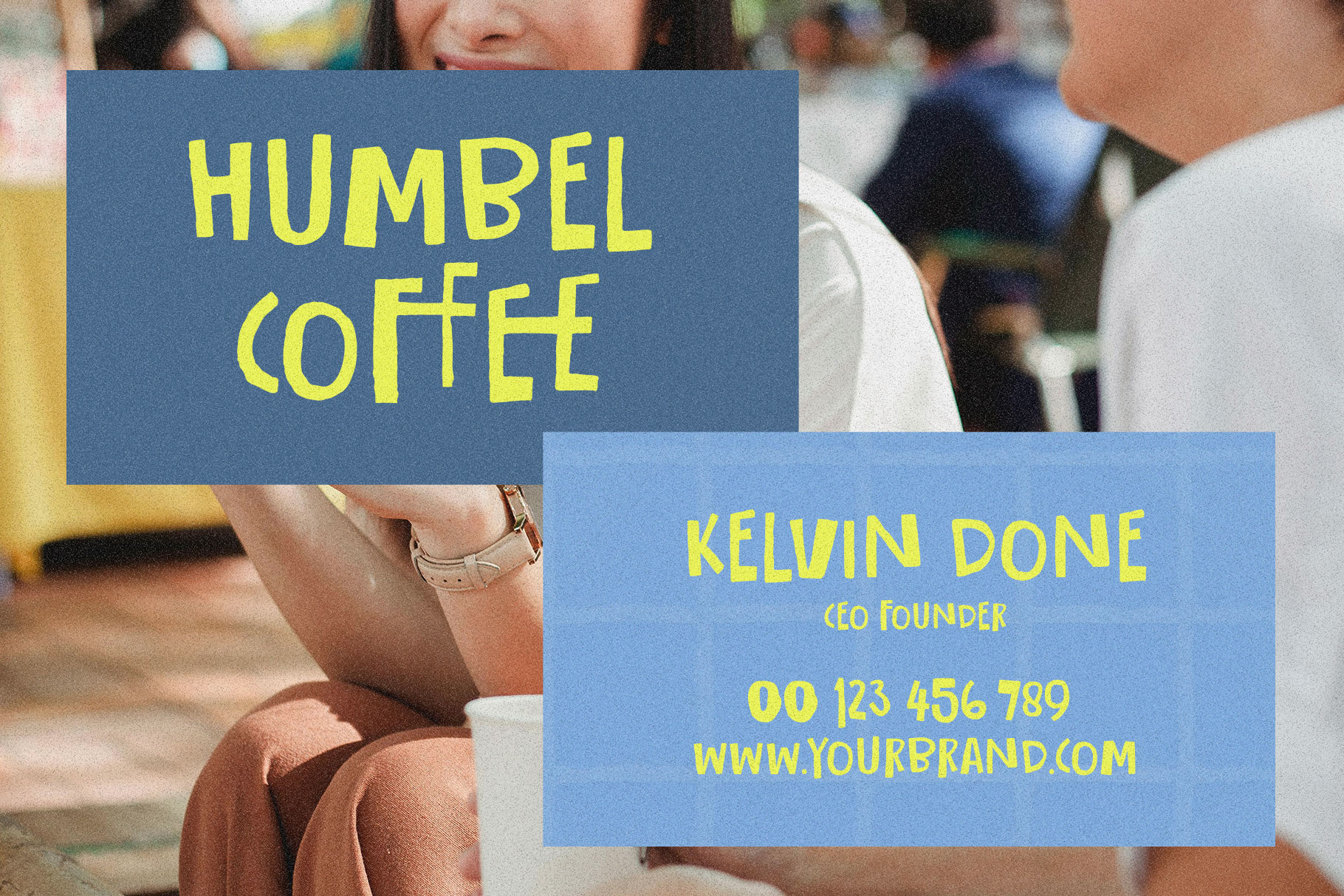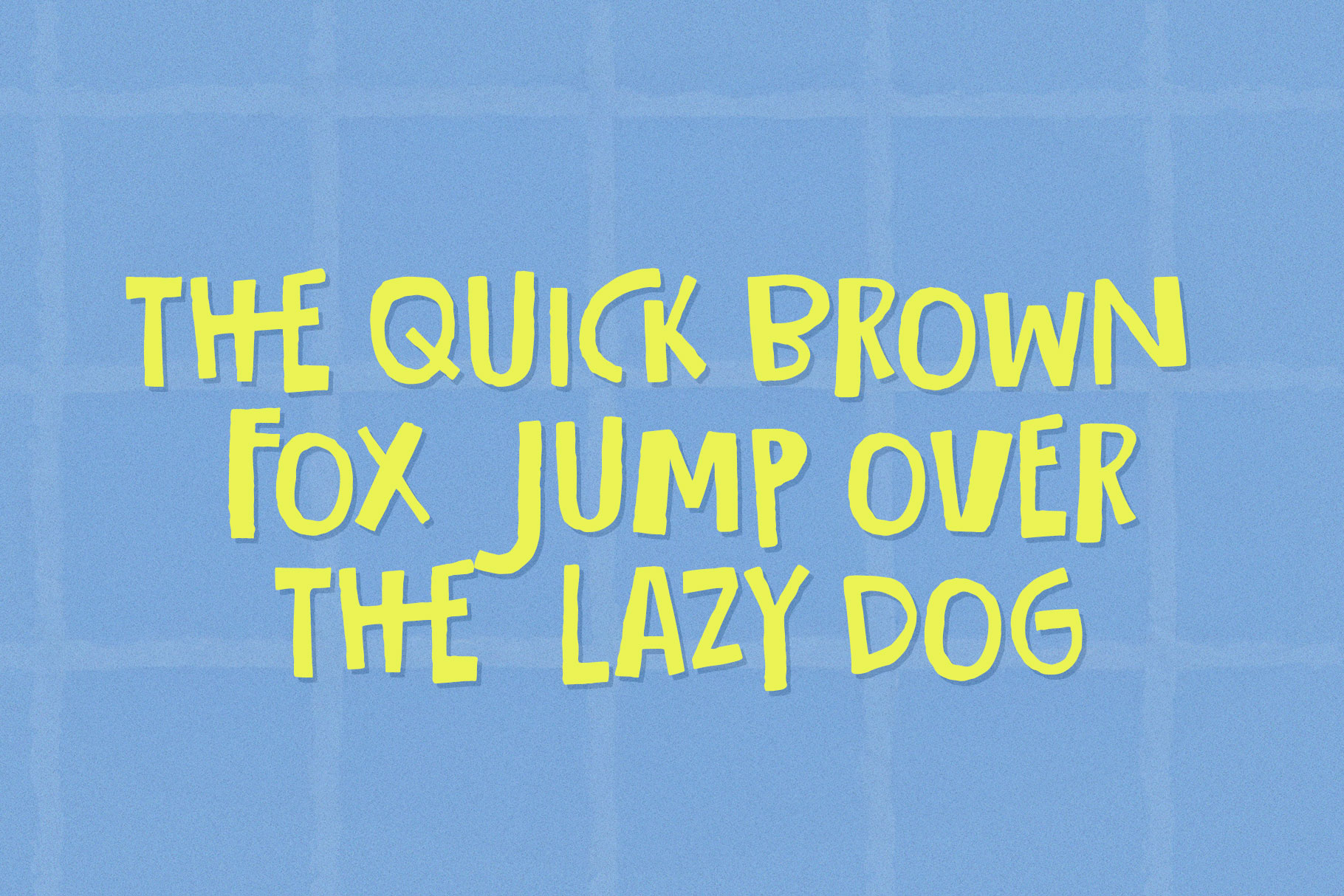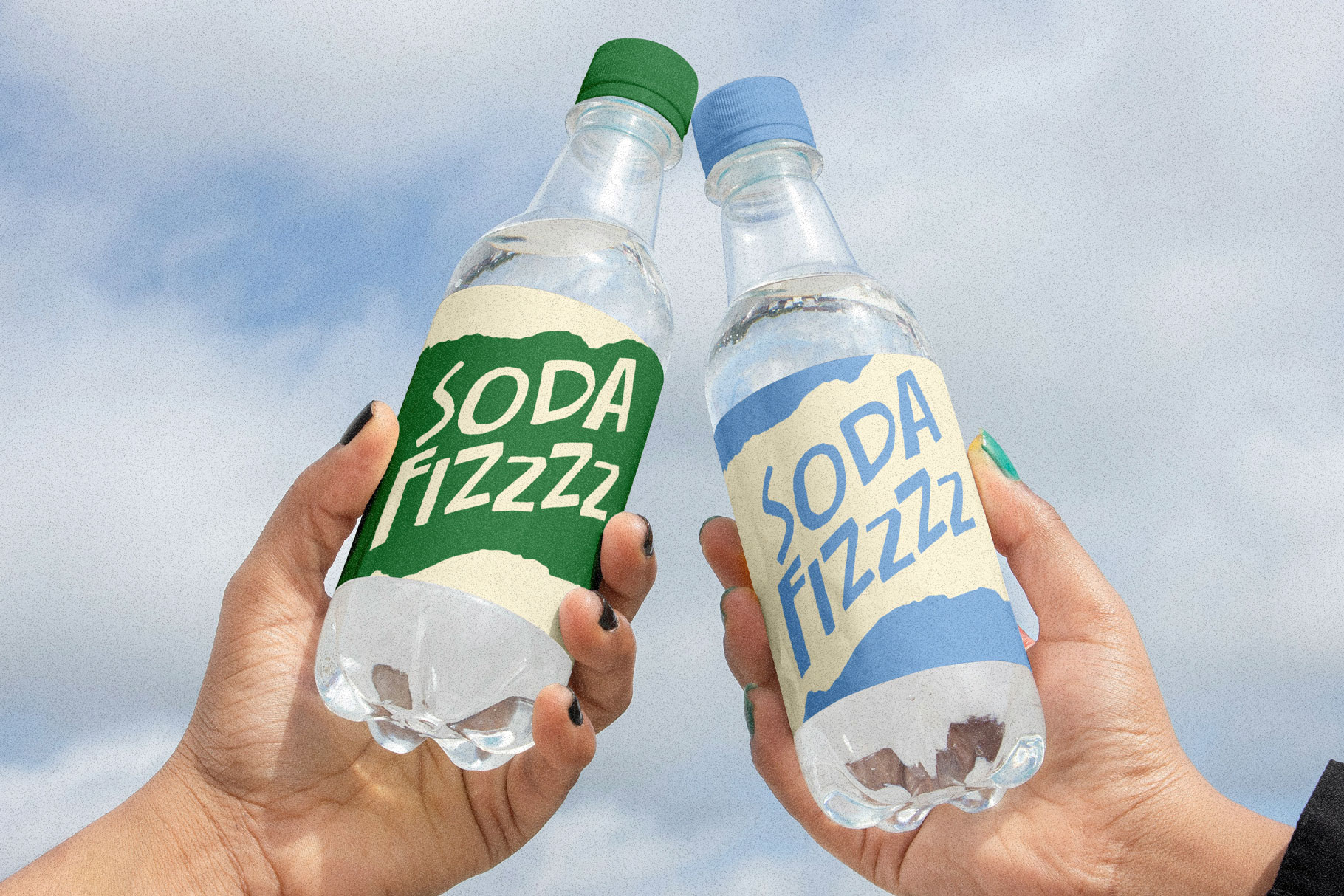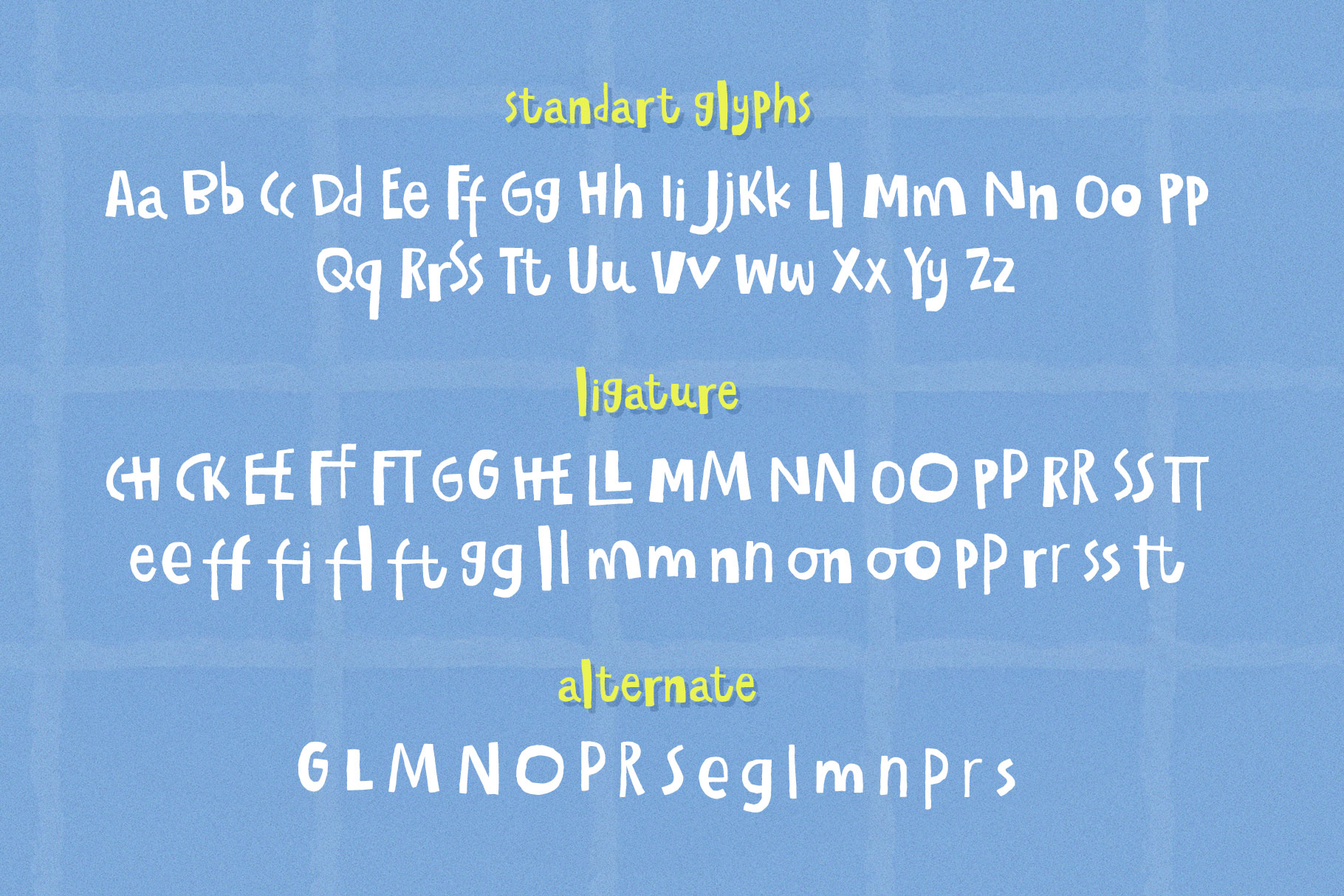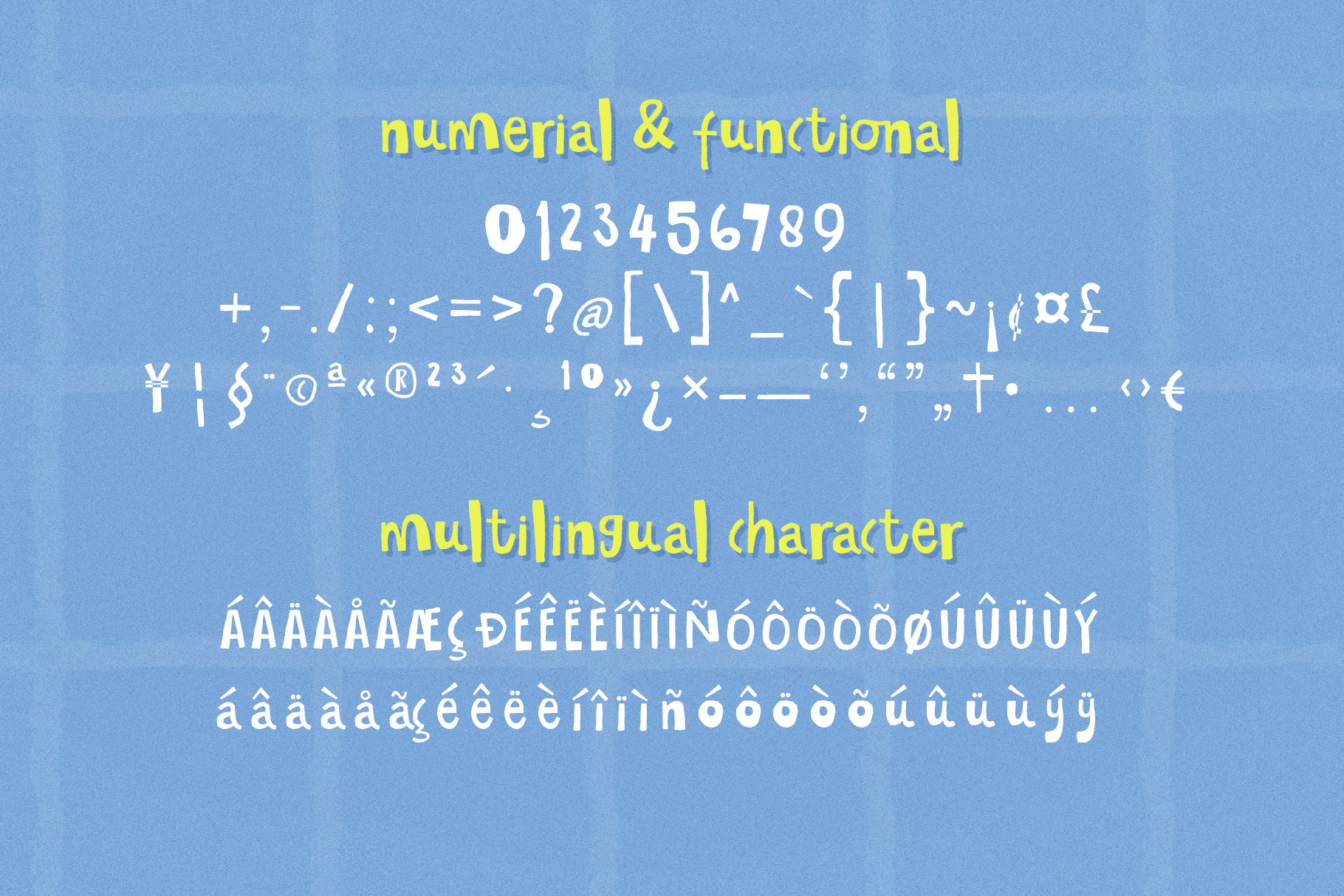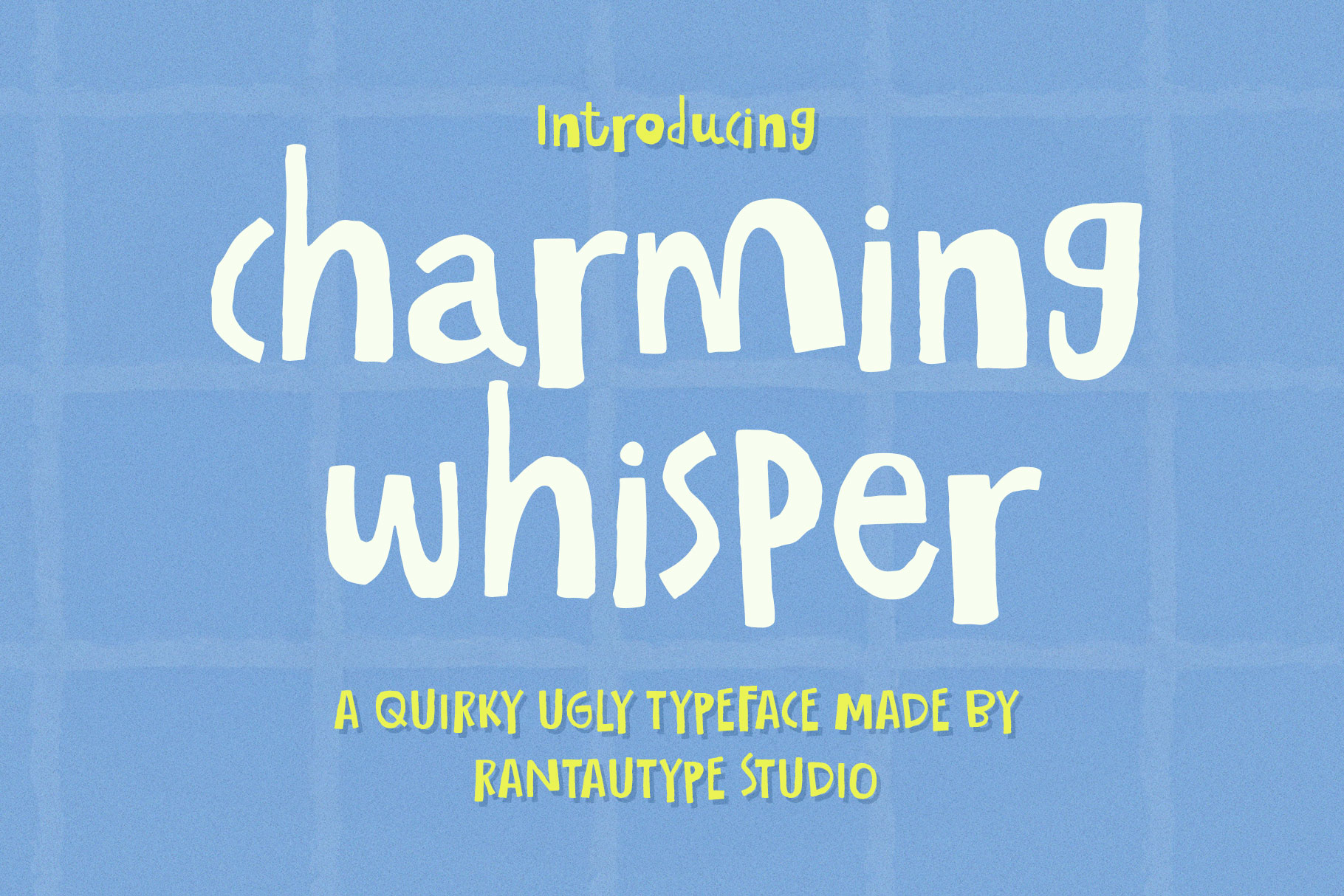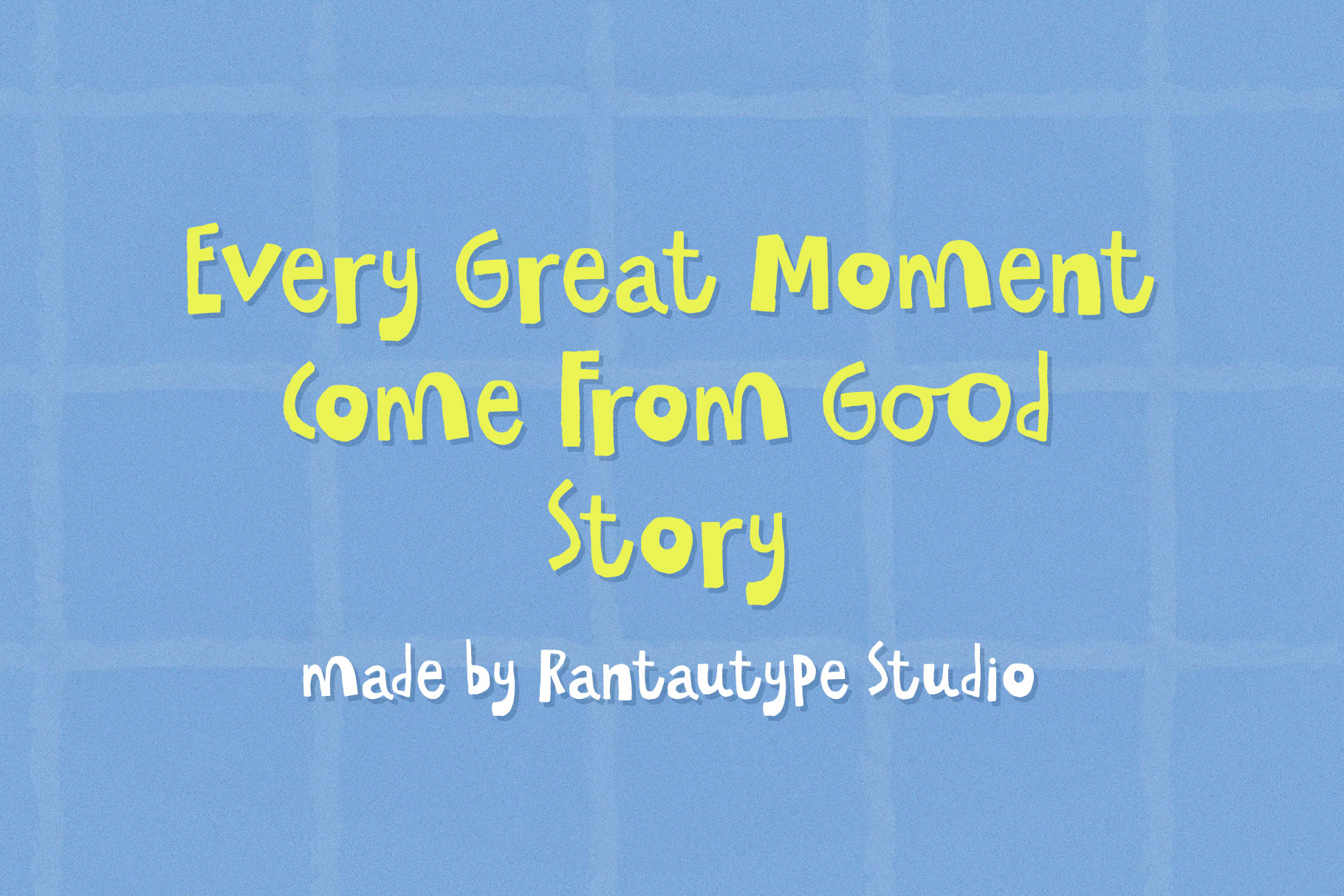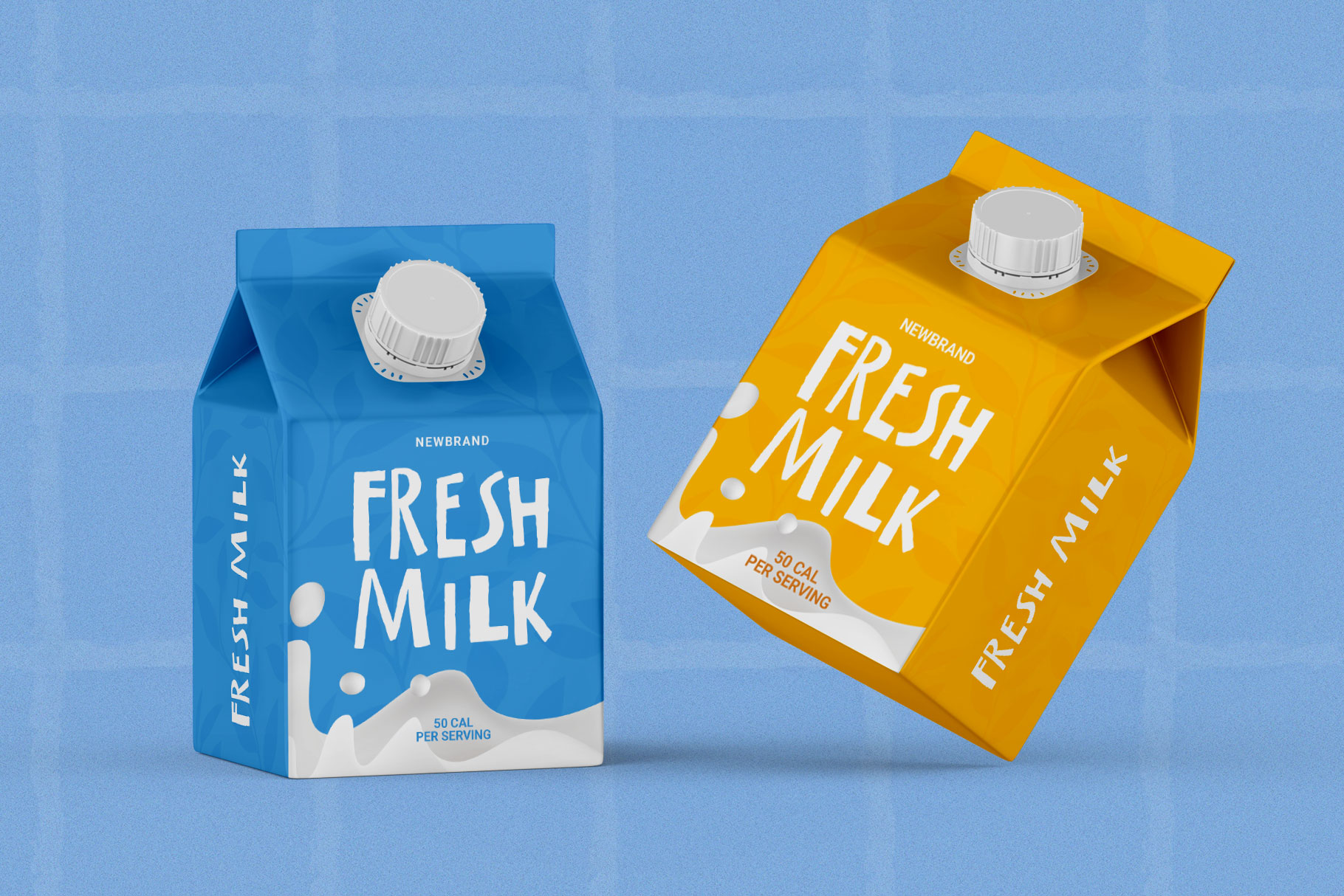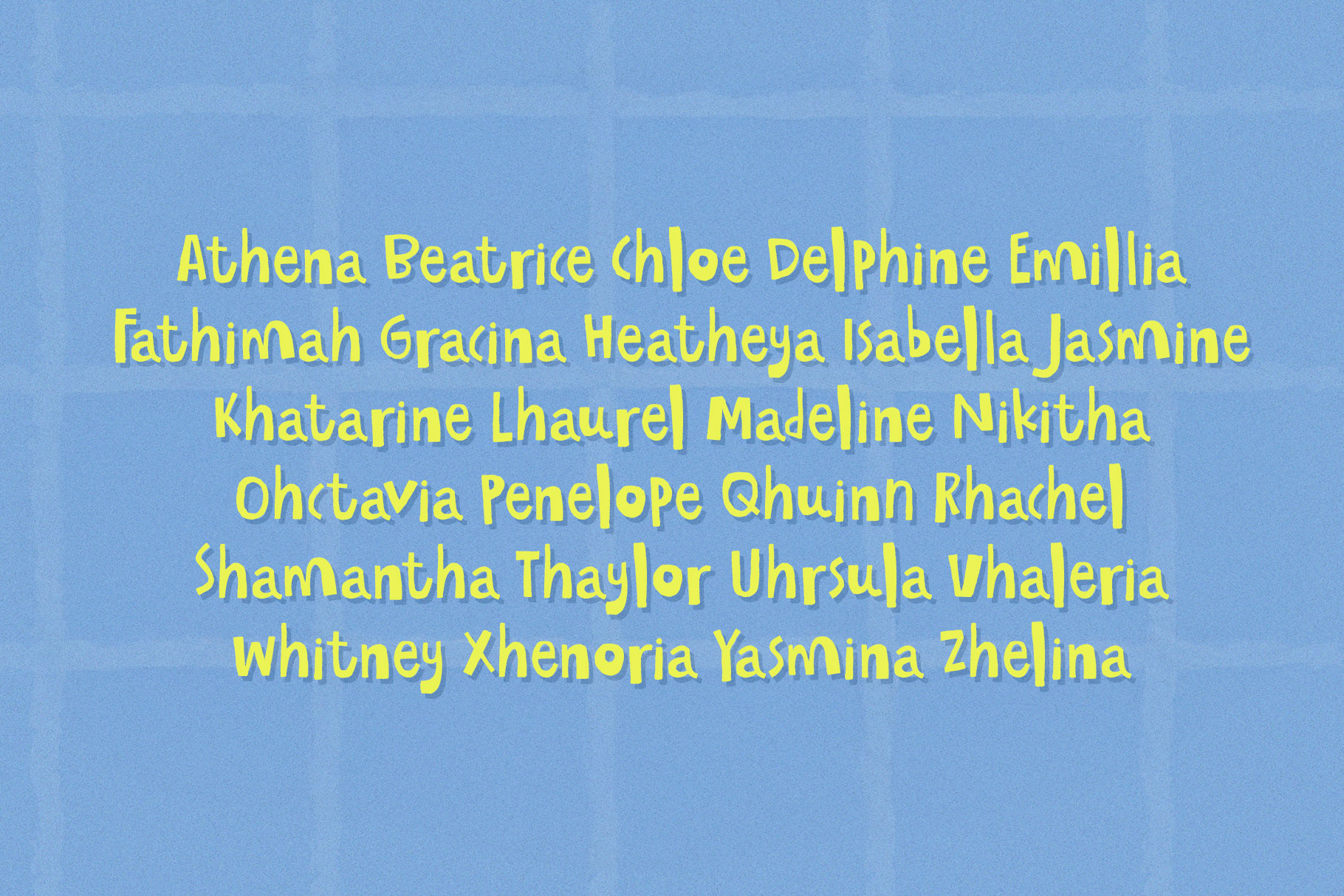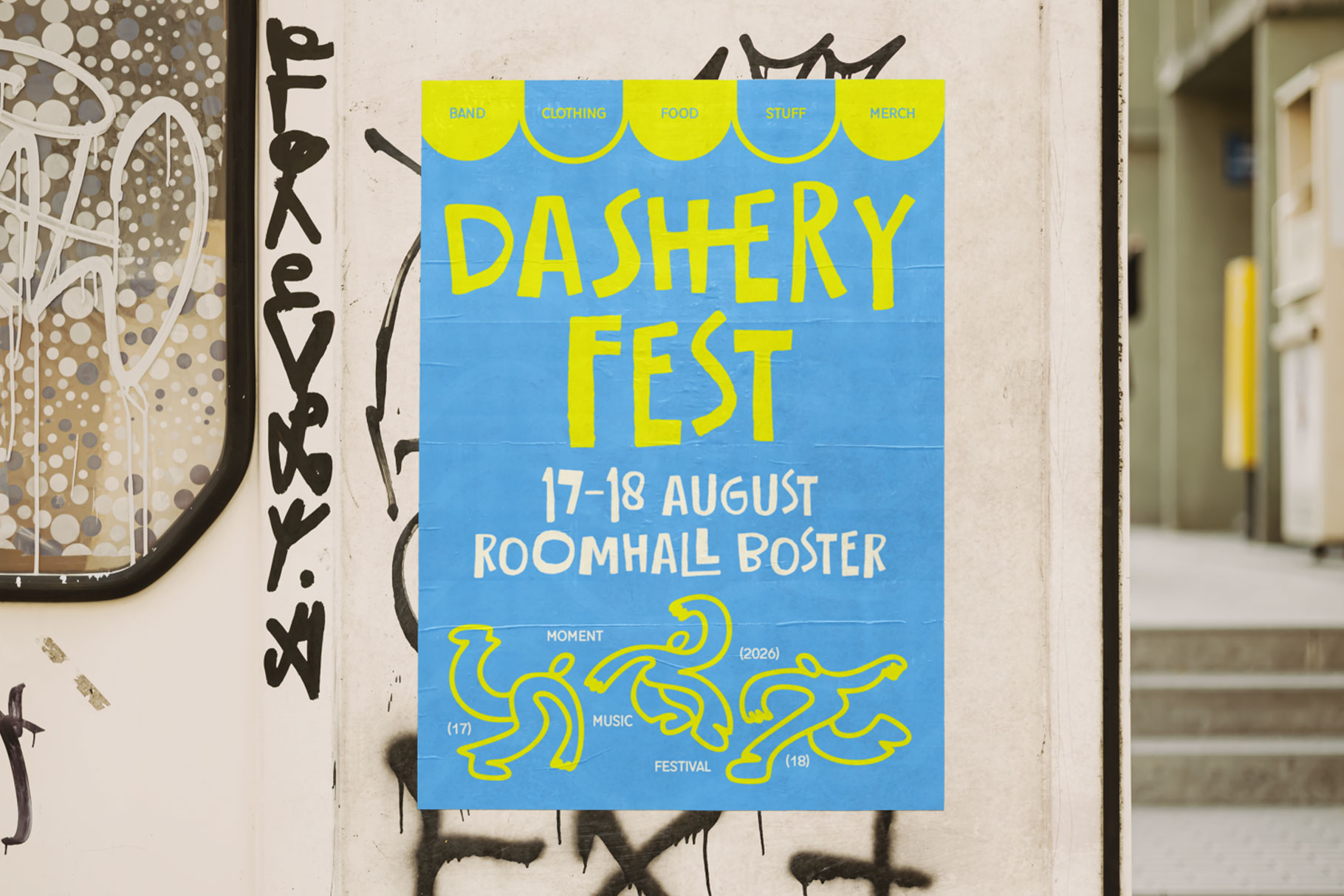
Charming Whisper Quirky Ugly Typeface
Charming Whisper is celebration of imperfection, designed to break traditional rules of beauty and replace them with personality, humor, and expressive chaos. Its charm lies in its refusal to conform, making it instantly eye-catching and emotionally engaging.